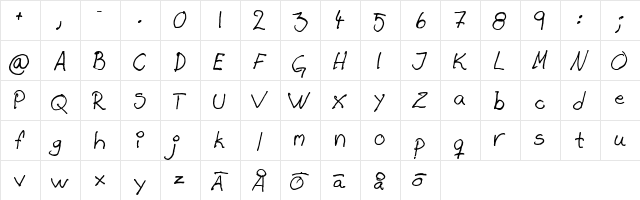
Anna 9 Anna 9
Design Context for Anna 9 Typeface
Anna 9 is a composed and adaptable typeface that performs quietly and consistently across a wide range of design contexts.